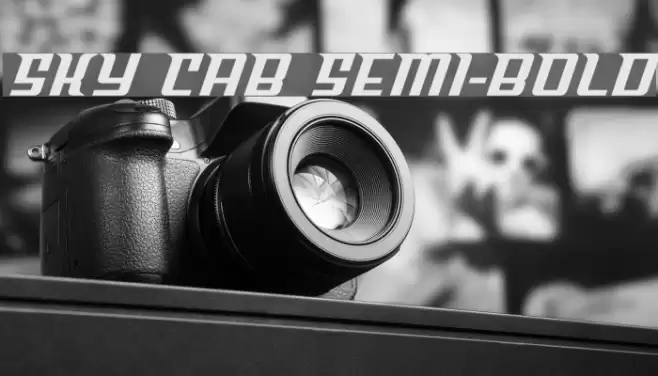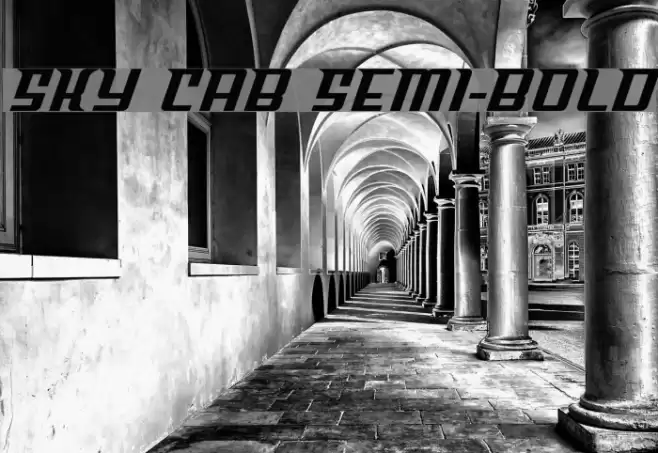
Sky Cab Semi-Bold Font
Sky Cab Semi-Bold Description
This font features a bold, angular design with a futuristic and dynamic appearance. The characters are sharply defined with a slight slant, giving a sense of motion and speed. The uppercase letters are particularly striking, with a strong geometric influence that is consistent throughout the set. The numbers and special characters maintain this bold style, ensuring uniformity across all glyphs. The font's thick strokes and sharp angles make it highly legible, even at smaller sizes, while its unique style makes it stand out in any design.
A bold, angular font with a futuristic and dynamic style from Sci-fi fonts.
- Proposed Projects: Ideal for use in technology branding, sports team logos, video game titles, and sci-fi movie posters.